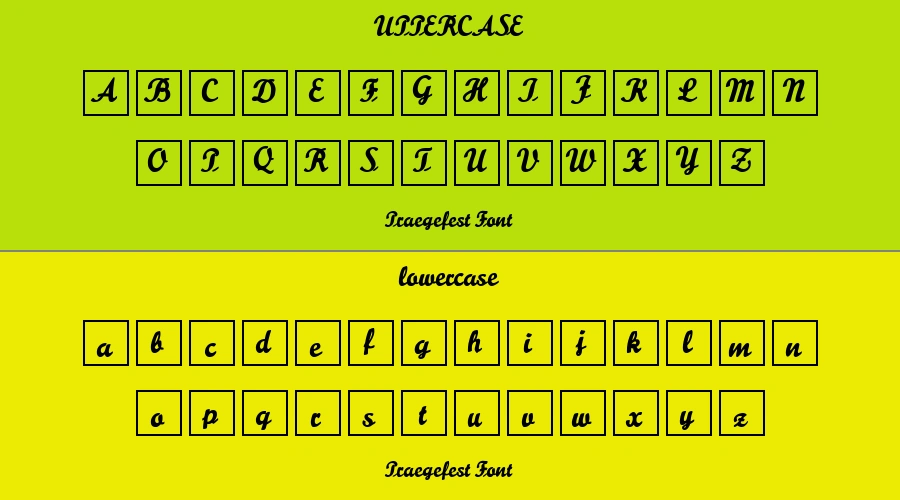
About Praegefest Font
Praegefest Font represents a sophisticated approach to type design, balancing flourishes with refinement. Perfect for scientific papers, this font family showcases impressive authenticity and artistic merit throughout its character set. Designers appreciate its versatility and reliability.
Designers will appreciate nuanced touches including architectural precision and ordinals, adding sophistication to any project. These features become apparent in footnotes, where scanning accuracy matters most. The careful treatment of cap height ratio and brand potential ensures optimal performance.